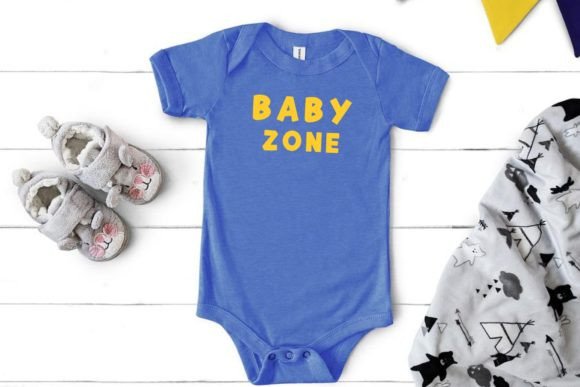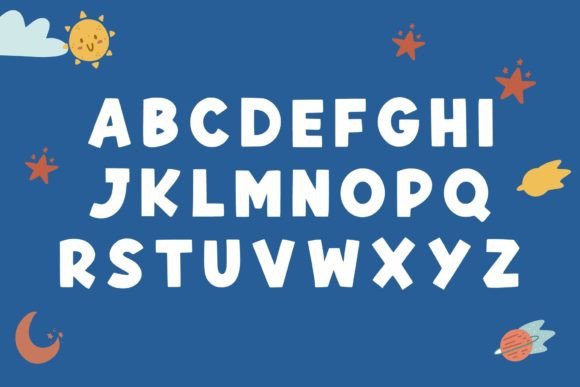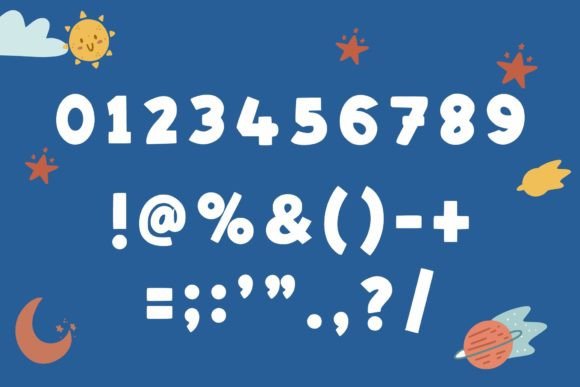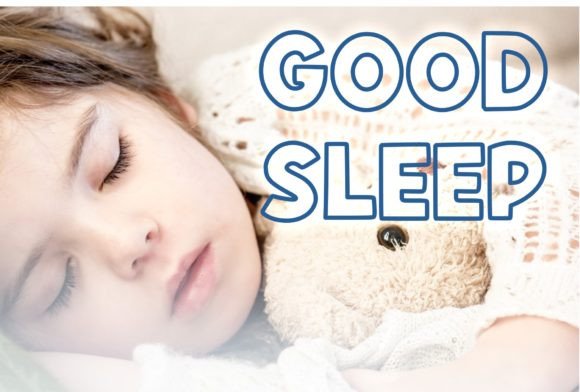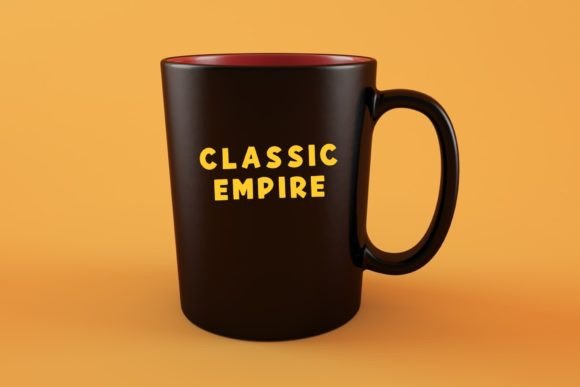
Dream Zone Font: The Friendly, Fun, and Bold Display Font for All Occasions
Are you tired of using the same old fonts for your designs, crafts, and presentations? Look no further! Introducing the Dream Zone Font, a display font that is friendly, fun, and bold. This versatile font is perfect for a wide range of projects, from digital design and presentations to crafts and creating greeting cards. In this article, we’ll take a closer look at the Dream Zone Font and explore its features, benefits, and uses.
What is Dream Zone Font?
Dream Zone Font is a display font designed to make a statement. Its friendly, fun, and bold style makes it perfect for projects that require a touch of personality. The font is carefully crafted to be highly legible, even at large sizes, making it ideal for headlines, titles, and other display text.
Features of Dream Zone Font
The Dream Zone Font has several features that make it stand out from other display fonts. Some of its key features include:
- Unique and playful design: The Dream Zone Font has a one-of-a-kind design that is both fun and engaging. Its playful style makes it perfect for projects that require a touch of whimsy.
- Highly legible: The font is carefully crafted to be highly legible, even at large sizes. This makes it ideal for headlines, titles, and other display text.
- Versatile: The Dream Zone Font is perfect for a wide range of projects, from digital design and presentations to crafts and creating greeting cards.
Benefits of Using Dream Zone Font
The Dream Zone Font offers several benefits to designers and crafters. Some of its key benefits include:
- Adds personality to your designs: The Dream Zone Font adds a touch of personality to your designs, making them stand out from the crowd.
- Increases engagement: The font’s playful style makes it perfect for projects that require a touch of whimsy, increasing engagement and interaction with your audience.
- Perfect for DIY projects: The Dream Zone Font is perfect for DIY projects, such as crafting and creating greeting cards.
Uses of Dream Zone Font
The Dream Zone Font is perfect for a wide range of projects, including:
- Digital design: Use the Dream Zone Font to add a touch of personality to your digital designs, such as brochures, flyers, and posters.
- Presentations: The font is perfect for presentations, adding a touch of whimsy and engagement to your slides.
- Crafts: Use the Dream Zone Font to add a personal touch to your crafts, such as scrapbooking and card making.
- Greeting cards: The font is perfect for creating greeting cards, adding a touch of personality and whimsy to your designs.
In conclusion, the Dream Zone Font is a friendly, fun, and bold display font that is perfect for a wide range of projects. Its unique and playful design, highly legible style, and versatility make it a must-have for designers and crafters. Whether you’re using it for digital design, presentations, crafts, or creating greeting cards, the Dream Zone Font has the potential to become your favorite font, whatever the occasion.